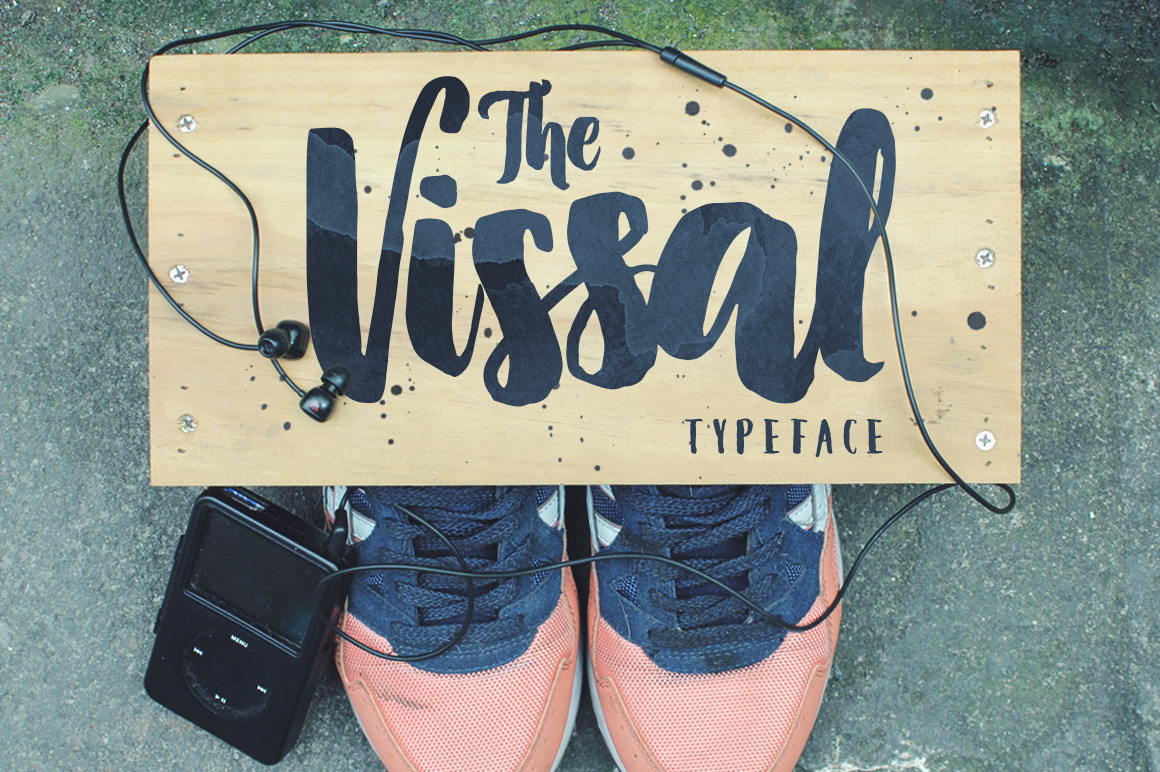
The Vissal script brush logo font
Introducing The Vissal Typeface, a blobby brushy calligraphic style typeface with still holdin' on into the genuinity of that hand stroke of the human race.
The Vissal Typeface are aiming for the typography and lettering universe that everybody know has going super viral nowadays, so here comes the time-saver for all of you, boom!
The Vissal font contains 298 glyphs with Opentype Standard encoding, Multi Language support, Stylistic Alternates available, Special ligatures for every double letters to maintains the authenticity of handwriting.
Vector Bonus (AI, EPS, and PDF format) contains a swirl and swash as an accessories to fill the empty space of your typographic hand-lettering design.
Chillaks font (OTF and TTF) a skinny tall typeface to complete the feels on The Vissal Typeface, a standard font with English language support only.